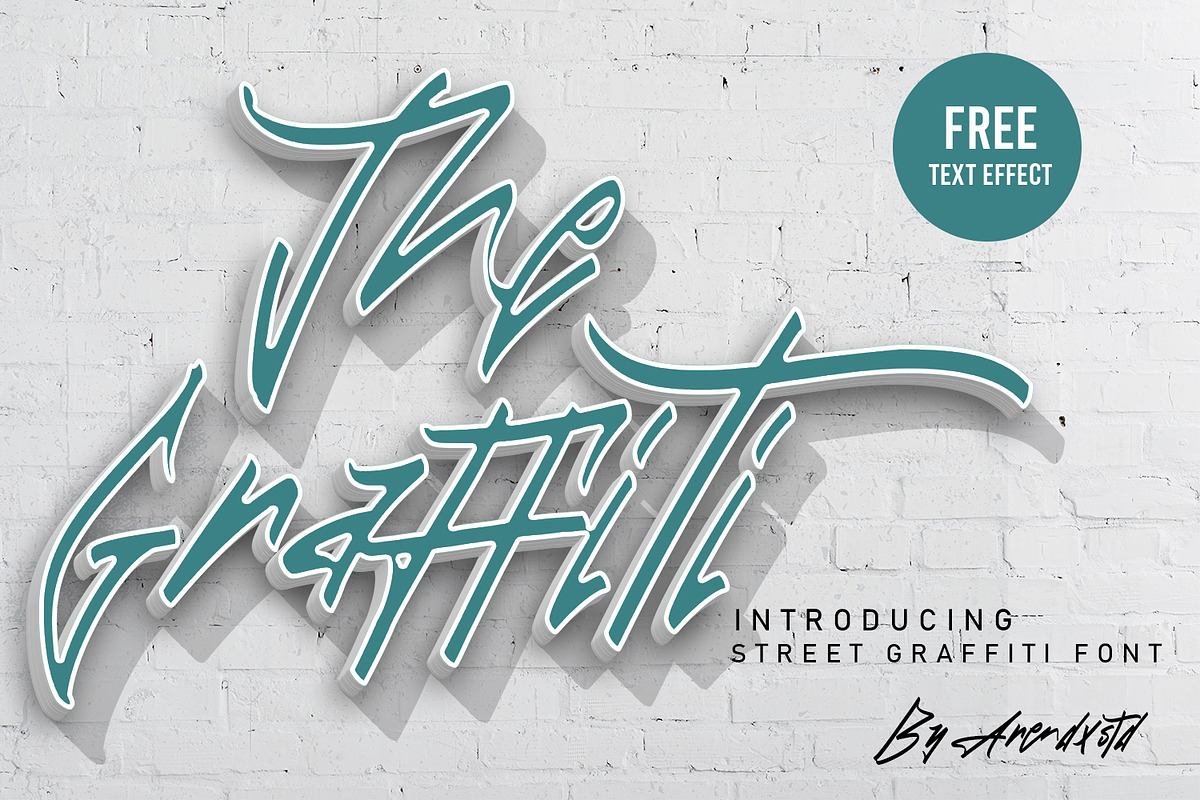
The Graffiti Font - Free Text Effect Free Download
The Graffiti Font Free Download is a bold and expressive typeface inspired by urban street art and graffiti culture. With its edgy strokes, hand-sprayed texture, and rebellious attitude, this font is perfect for poster designs, hip-hop album covers, skateboarding brands, urban fashion, event flyers, and anything that needs a raw, street-style edge.
The Graffiti Font Free Download also comes with a built-in free text effect, making it easy to apply authentic spray-paint style to your typography with just a few clicks. Perfect for digital art, social media posts, and creative branding that dares to stand out.
Whether you’re channeling the energy of graffiti walls or crafting bold typographic statements, this font adds personality, grit, and street-smart style. It pairs well with grunge textures, urban photography, and bold color palettes.